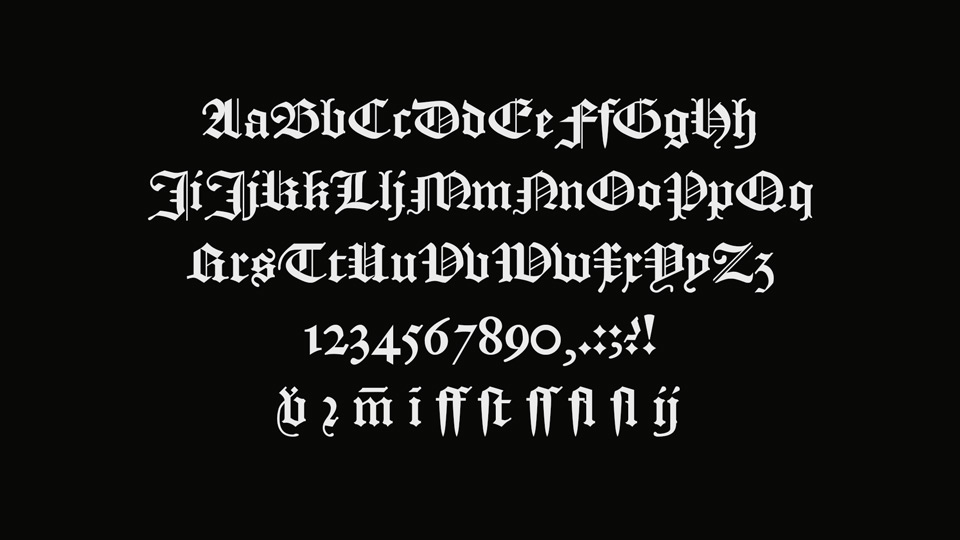
The terror of many a student of Dutch Language and Culture! Textura Belgica is a true to tradition digitalization of the blackletter type as it was used from the 16th into the 20th century in the Dutch language area.
With ‘true to tradition’ is meant that, in this font, differently from many other blackletter fonts you can find online, there is full support for the special characters you need to make your personal facsimiles!
This font had been digitalized using a high-resolution scan of a sheet with all letters, as made by type cutter and founder Hendrick van den Keere, from Gent in the 16th century. Beside this sheet, which I used as a base, I used:
– scans of the Dutch ‘States Translation’ of the Bible from 1637;
– via Google Books ‘Verbael van ‘t Verhandelde over de Gravamina, Kerckelijke swaricheden tot Rotterdam, Oudewater, etc.’ ;
– my own little private collection (two Bibles, early 19th and end 18th century, and a catechism, second half 18th century).
I have called this font ‘Textura Belgica’ as the term ‘Belgica’ during the ‘golden age’ of this type of font was used as the Latin name of all the Netherlands (equivalent in area with the modern Benelux). For example, the Latin name of the Dutch colony New Netherland was ‘Nova Belgica’.